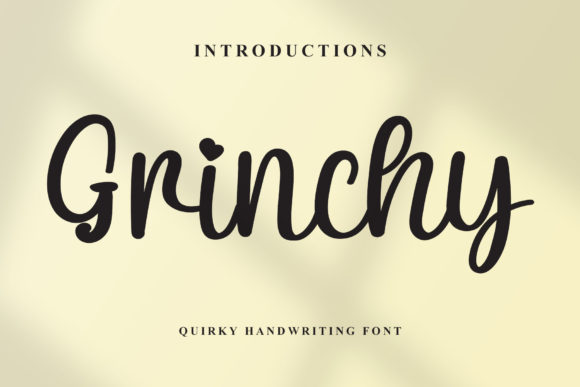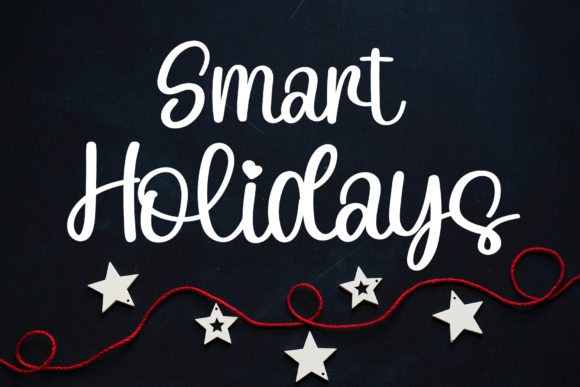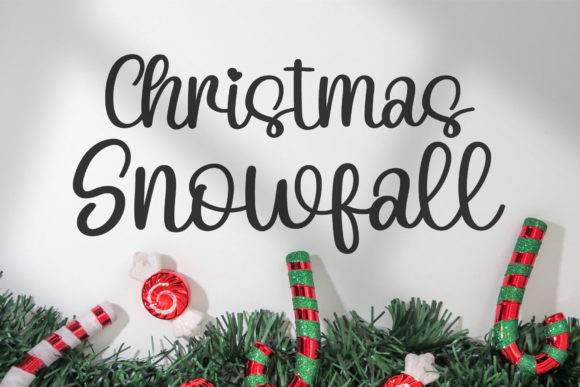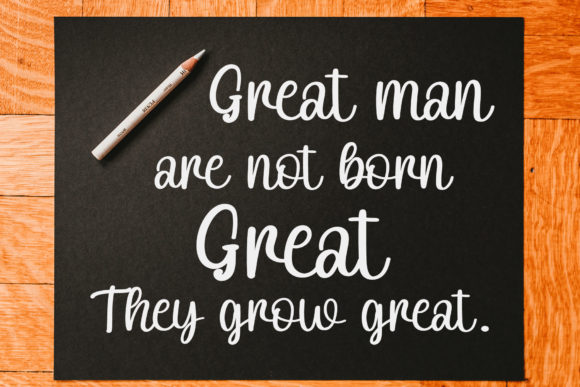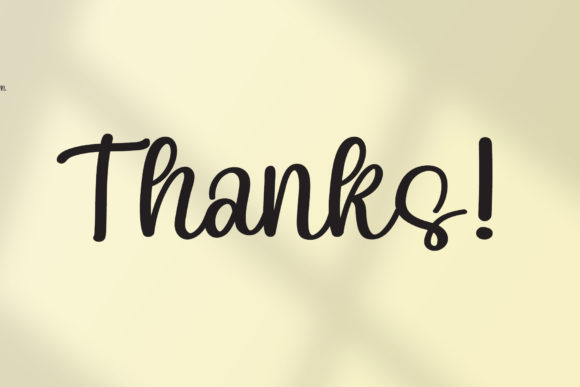
Grinchy Font
About Grinchy Font
Grinchy is feels equally charming and elegant. It looks stunning on wedding invitations, thank you cards, quotes, greeting cards, logos, business cards and every other design which needs a handwritten touch.